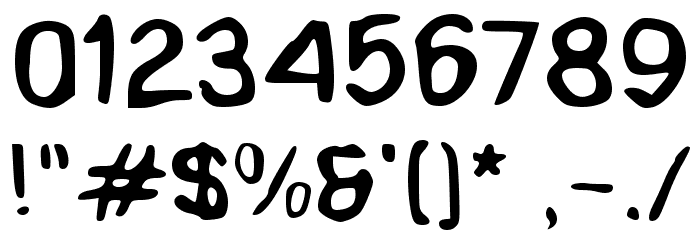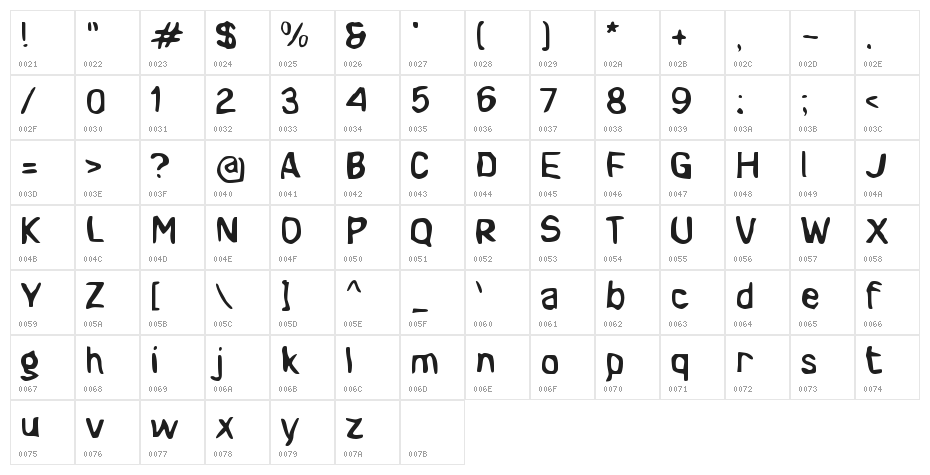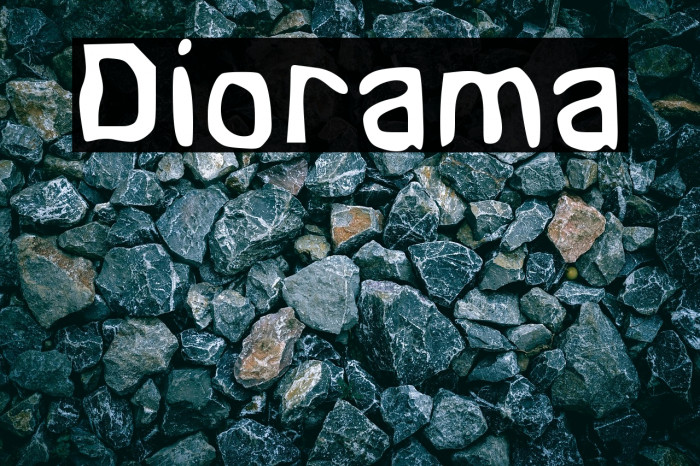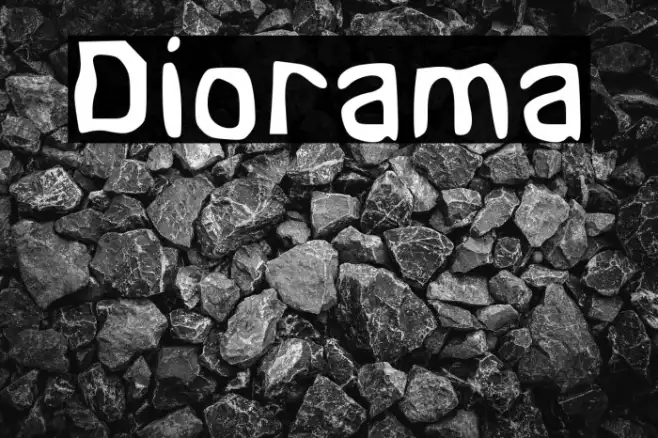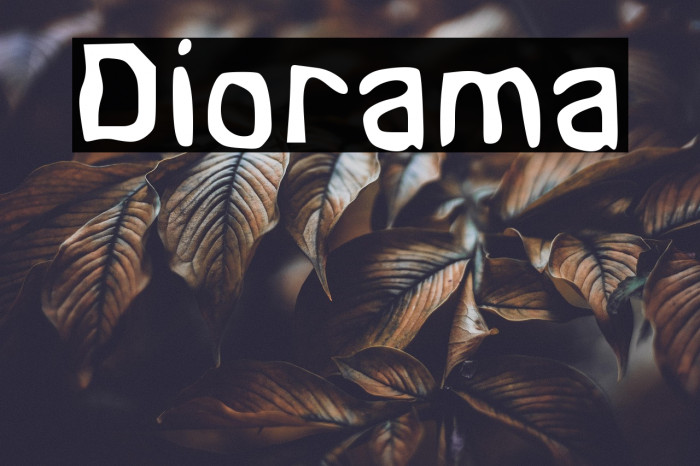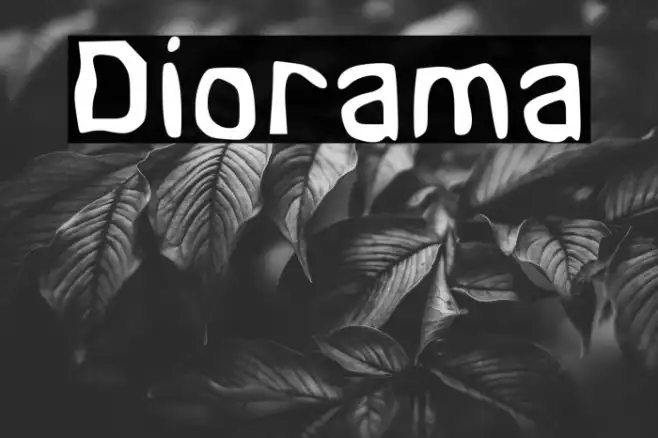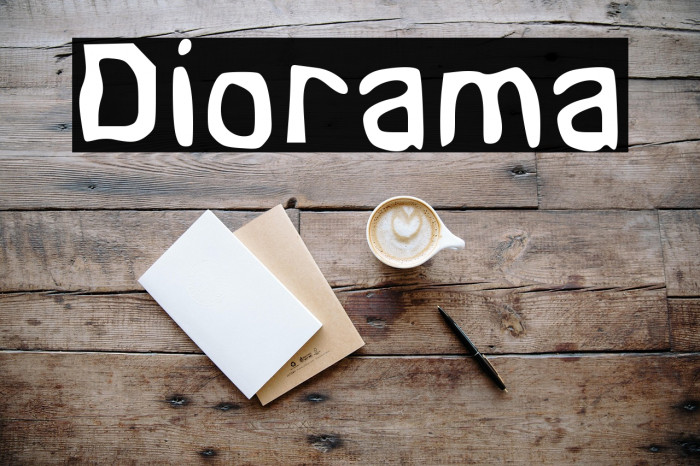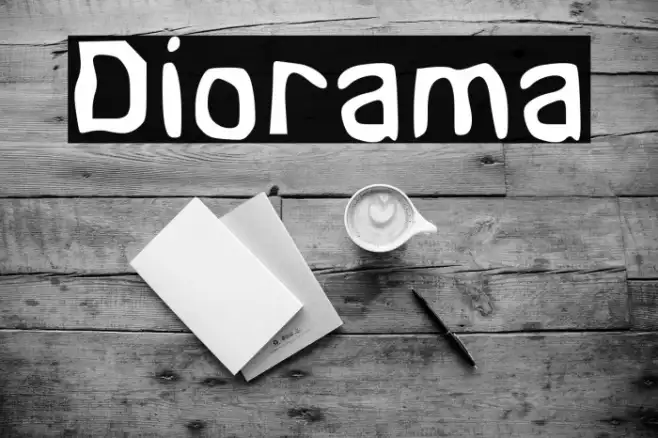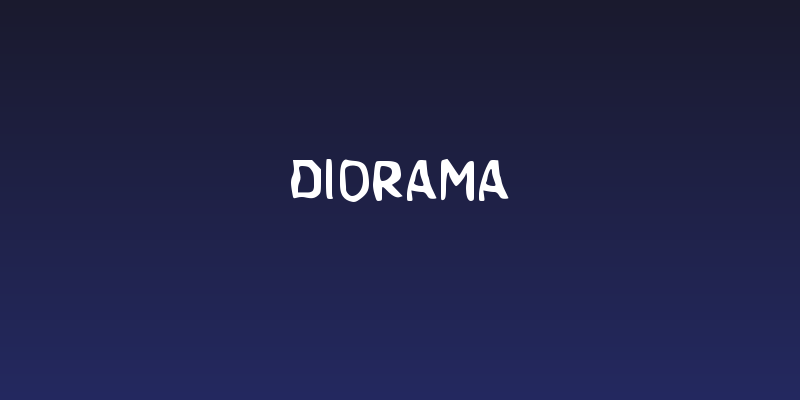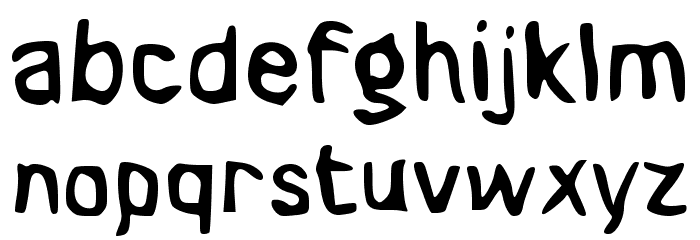
Diorama Font
Diorama Description
This font features a playful and organic style, characterized by its irregular and hand-drawn appearance. The letters have a slightly uneven baseline, giving them a whimsical and informal feel. The strokes are bold and rounded, with varying thickness that adds to the font's dynamic and lively character. The overall design is reminiscent of a child's handwriting or a casual doodle, making it ideal for projects that require a touch of creativity and fun. The numbers and special characters maintain the same playful aesthetic, ensuring consistency across all text elements.
| Overall Style | Playful, Casual |
| Proposed Projects | Ideal for children's books, playful branding, casual invitations, and creative posters. |